Type cast
Typefaces have been used for centuries, but only now has the first brick-and-mortar shop selling fonts opened. Copenhagen branding company e-Types is hoping its seasonal store is the start of something big.
“Sometimes, it’s important to do something which doesn’t make sense.” Rasmus Ibfelt, partner and strategic director of the Danish digital foundry and brand agency e-Types, is explaining the rationale (or lack thereof) behind Playtype, its seasonal shop in Copenhagen’s Vesterbro. The shop, which opened last December, sells 200 or so fonts (some designed by e-Types, some by its London partners, A2/SW/H2), as well as a small range of products, such as mugs and T-shirts, featuring two of its typefaces. It is thought to be the world’s first physical shop selling typefaces.
“We all had a love of typefaces,” Ibfelt continues. “We really believe in the power of typefaces; they are possibly the most prominent element of a brand. Over 15 years we accumulated so many, we decided we wanted to sell them online but that we also wanted a physical shop too, somewhere we could share our love of fonts at street level, to show how they are relevant for everyone. I think, for a mature company like ours, it’s been a good experiment to go somewhere beyond our usual context, to puzzle people.”
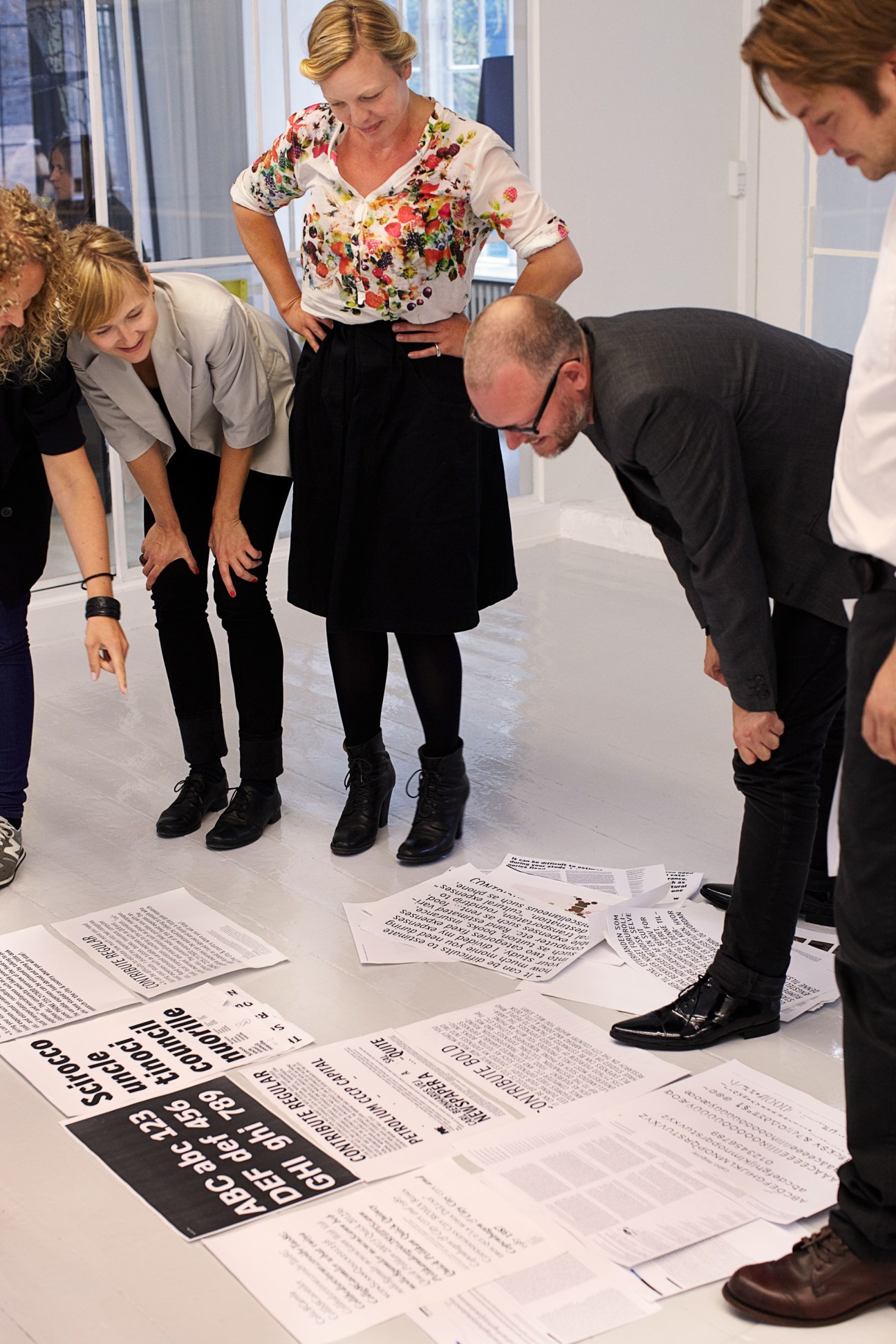
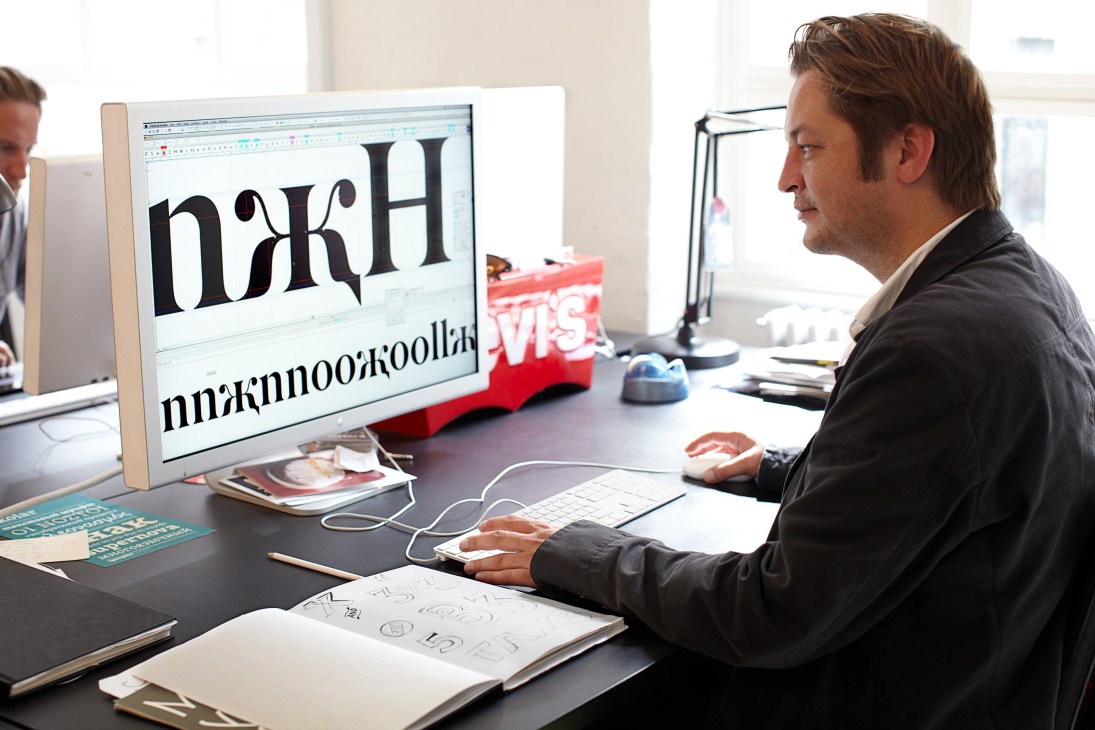
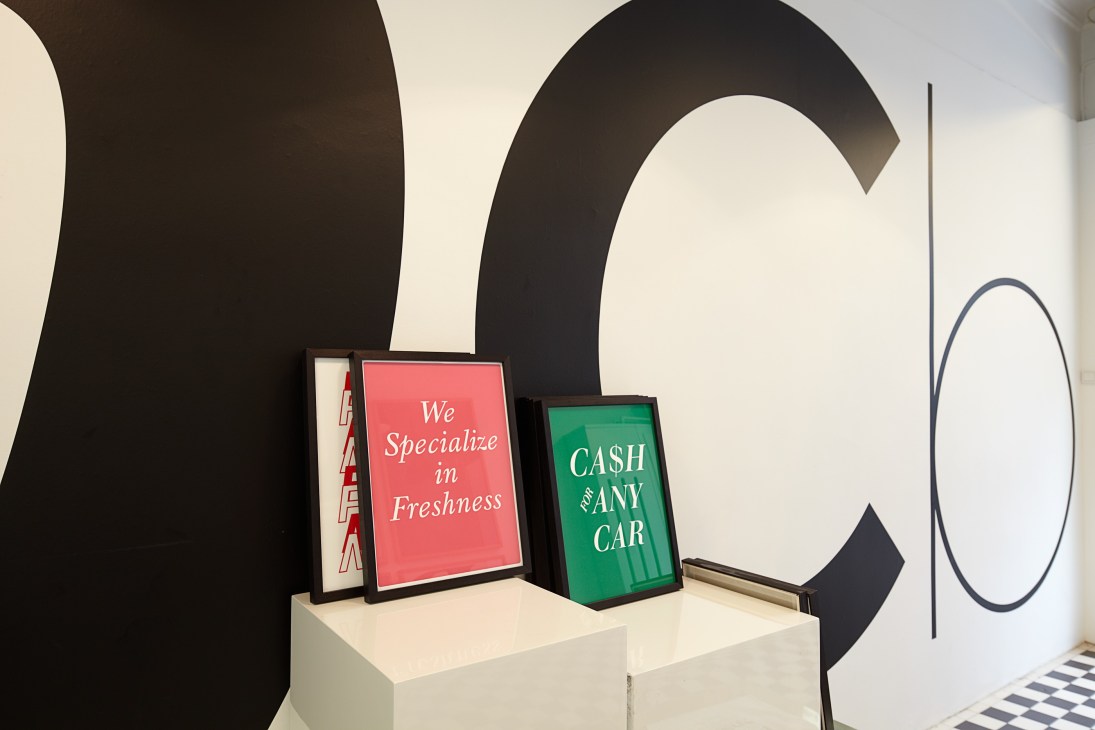
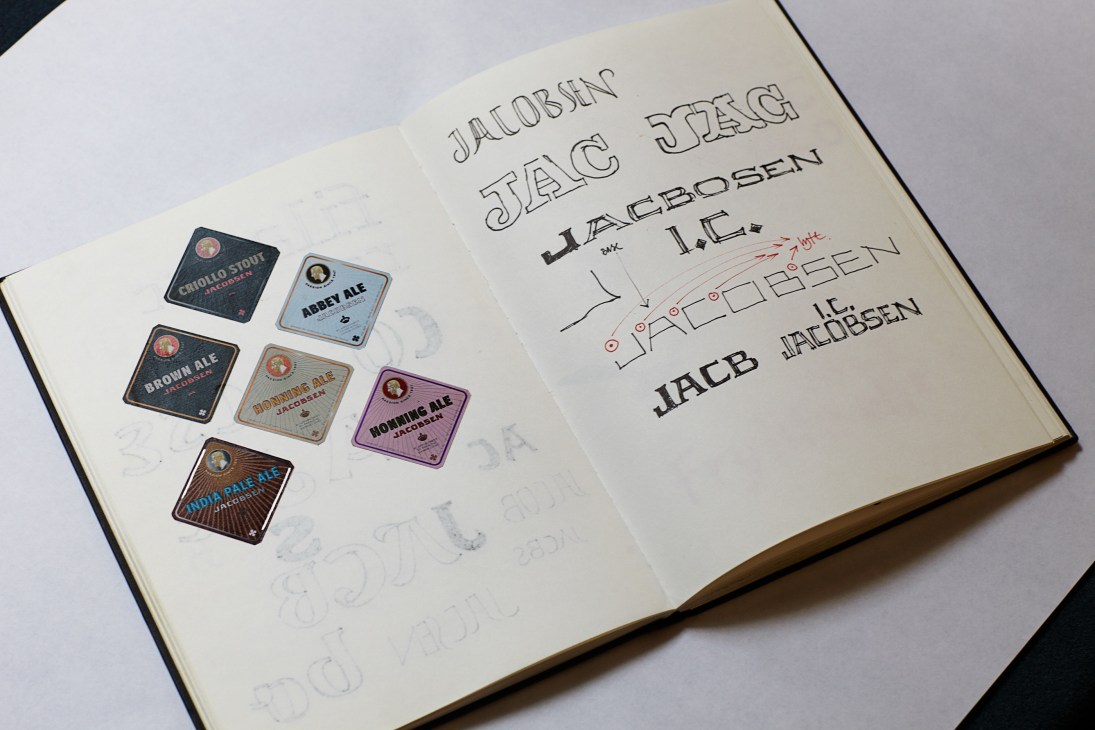
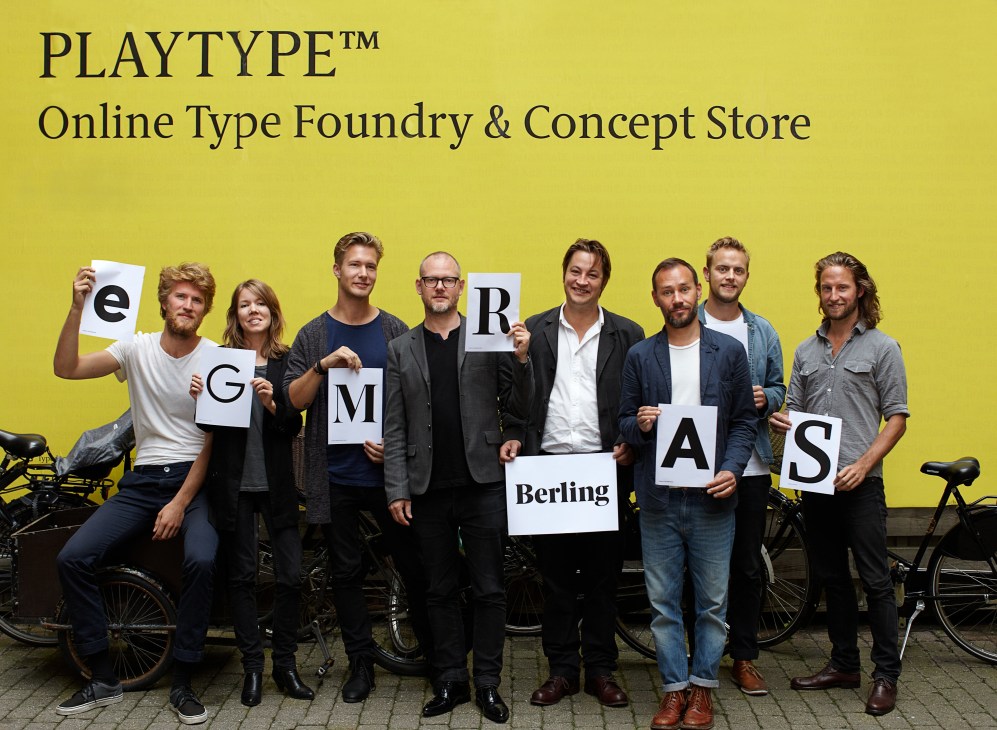
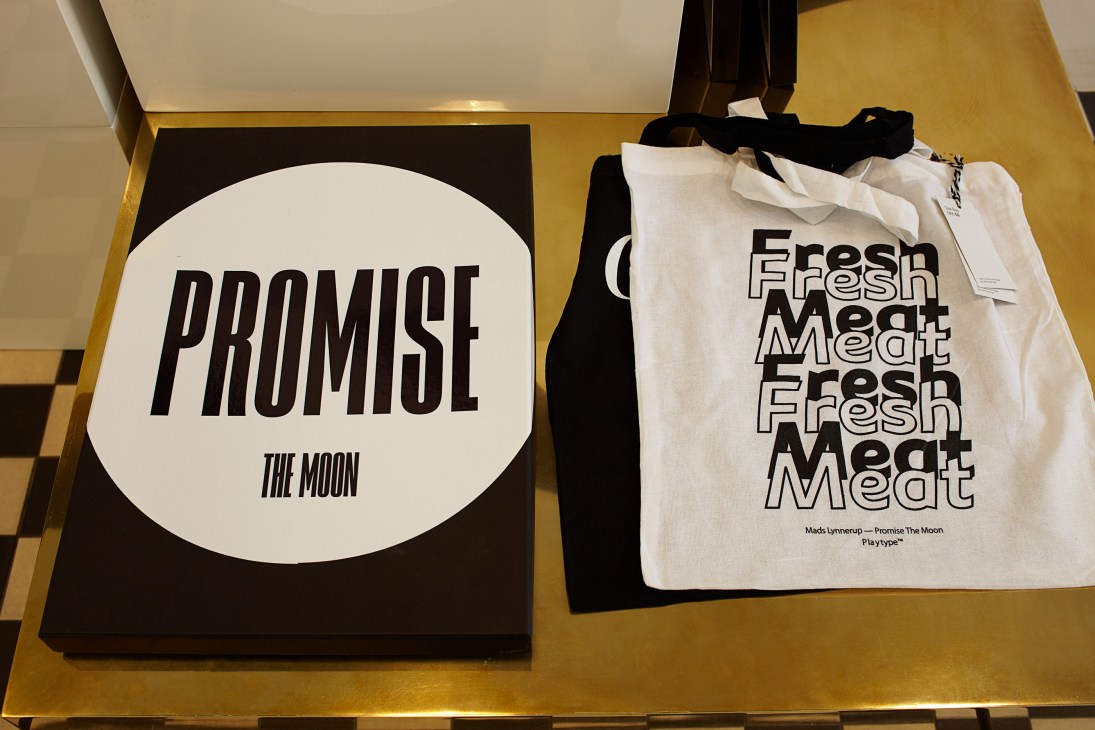
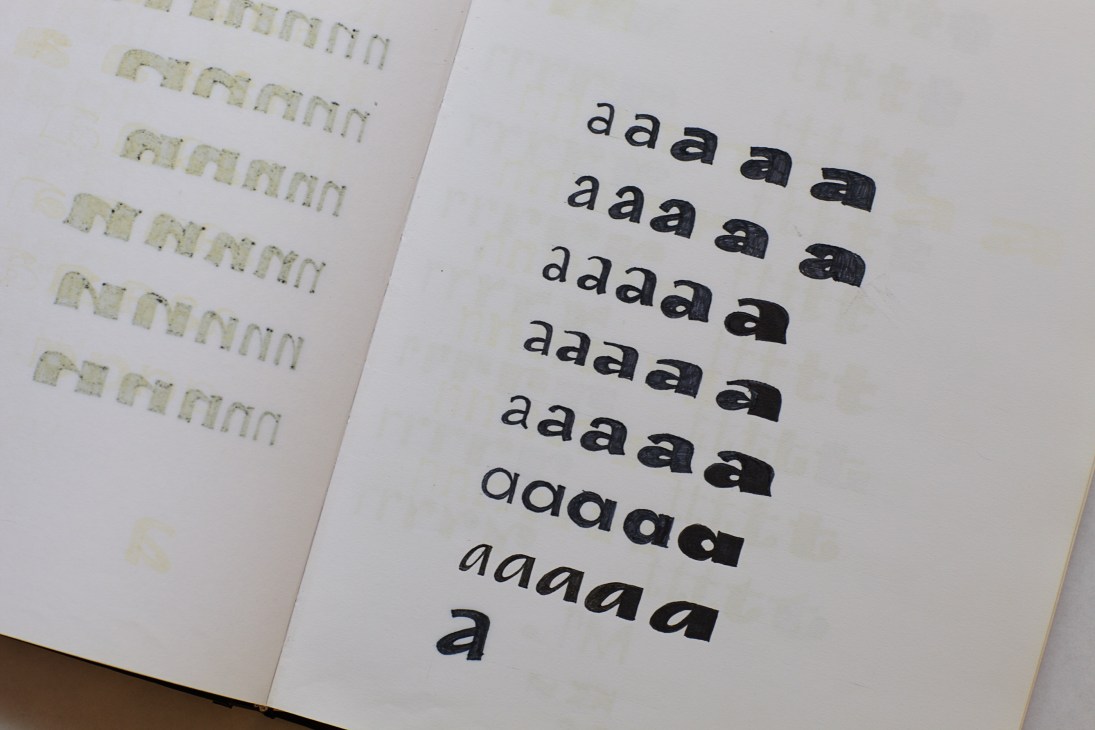
In recent years, awareness and interest in fonts has spread beyond the domain of font nerds into the mainstream, as with the surprise hit 2007 documentary Helvetica and the brouhaha surrounding the “Ban Comic Sans” movement. Everyone seems to have an opinion about fonts and smaller companies are exploiting their infinitesimal subtleties. “We can see that demand for customised or unique typography has never been greater,” says Ibfelt. “Typefaces are relevant to everyone these days. They are an integrated part of our lives. There are more and more typefaces, so it is easier than ever for a company, or even individuals, to find one that most closely expresses their identity. Every computer has loads of font options, and you have things like Google Web Fonts, which are giving them away for free.”
E-Types was invited by Google to submit a font last year which it did, though not without reservations. “We designed one called Play,” says Ibfelt. “Of course, there is a concern about giving fonts away for free but perhaps everything will be free in the future unless it’s a very high-end product, and that is what we are about. Or, alternatively, it would be great to see an iTunes for fonts, where you can buy them for a dollar.” He also predicts that different fonts will find their way into text messaging in the very near future, and hopes e-Types will be at the forefront.
For Jens Kajus, creative co-director and co-founder of e-Types, the shop has been a way for the company to stand out from that ever-intensifying competition. “There are lots of font bureaux in the world, and perhaps 150,000 different fonts out there,” he says. “But by opening a lifestyle shop we have something they don’t. Plus it’s really nice to get something made in 3D.” E-Types has designed typefaces and consulted on branding for clients including Mærsk, Carlsberg and Georg Jensen, as well as the venerable Danish newspaper Berlingske. Current projects range from redesigning a local taxi company’s livery to designing a new Danish ferry brand, to a golf resort in Bangalore. The company has a turnover of around dkr30m (€4m), and until now has viewed its shop – which cost around dkr300,000 (€40,000) to set up but has yet to make a profit – as a one-year-only promotional exercise.
“Actually, we’re not sure the shop is going to close,” says Ibfelt when Monocle speaks to him at e-Types’ two-floor, open-plan offices around the corner from the shop. “It’s been great to see the different customers we’ve had: not just the typeface nerds but the girl who spent over an hour finding a font [the shop sells them on USBs for €50] for her boyfriend for his birthday. Also, there’s a nice synergy between us being a branding agency having our own brand, and working for other clients’ brands. They take us more seriously because they see we understand the mechanisms of retail. The shop has been amazing publicity for us, and now we’re getting ambitious. The mugs have been a great success. All my colleagues laughed at me when I bought 500 white mugs, but it’s an accessible product in an otherwise quite strange space. We’ve just ordered another 3,000 and have had agents from all over the world asking to sell them.” (The bestsellers are the letters “A” and “E”, while tourists prefer the Scandinavian letters “Å” and “Ø”.)
“We want to develop the product business. We’re very inspired by Acne Jeans, which was an advertising company that went into clothing – and now their clothing makes more money.” But, according to Jonas Hecksher, co-creative director and co-founder of e-Types, the ultimate commission would be to design a font for an individual. “I can only think of one person who had their own font: Louis XIV,” says Hecksher, who estimates it would set the client back dkr200,000 (€26,800). “But who knows? Perhaps a Sultan will approach us.”
Alphabet troop
Three fonts from the e-Types library
Rasmus Ibfelt “We have just finished designing a new ferry brand, which is wonderfully old-school, but I love doing things on a large scale. The font is called The Wave.”
Jens Kajus “I’m now completing a new font, Agita, for a maritime museum opening in Helsingør in 2014. I was aiming for a boyish feel, a little bit technical, not heritage, contemporary. The museum is supposed to be for a man to visit with a child.”
Jonas Hecksher “It’s amazing designing for a newspaper – you are effectively designing the style of the paper. We wanted something elegant and approachable. A single typeface – Berling – that could express five different styles was difficult. The ultimate test is that you shouldn’t notice the font when you are reading it, but if you tear off a corner of the paper, you have to be able to recognise it from the font.”